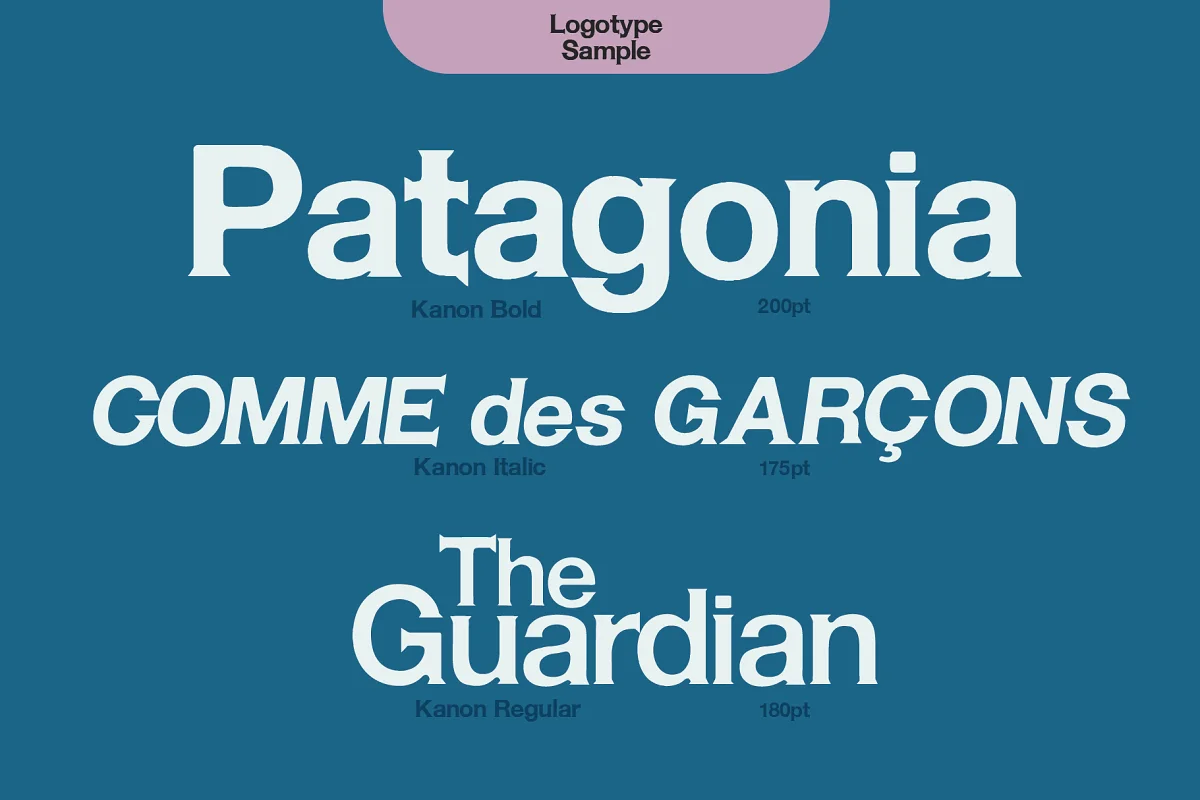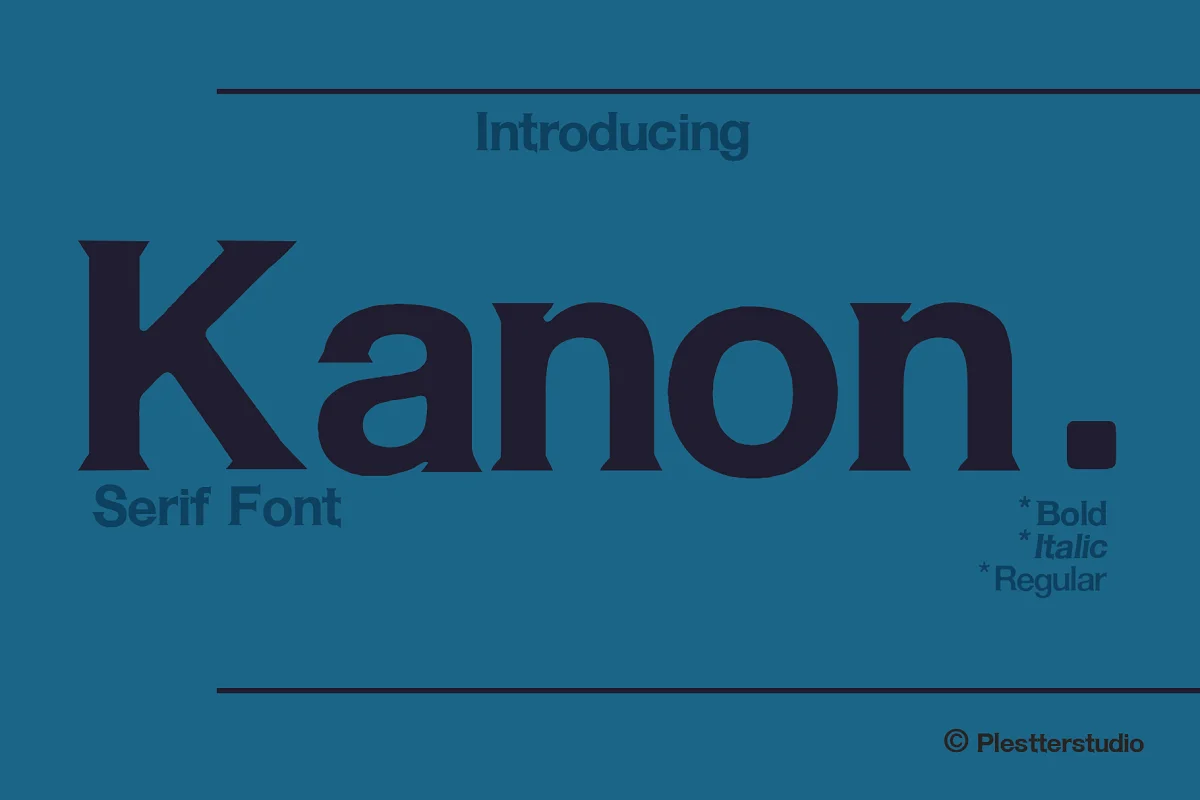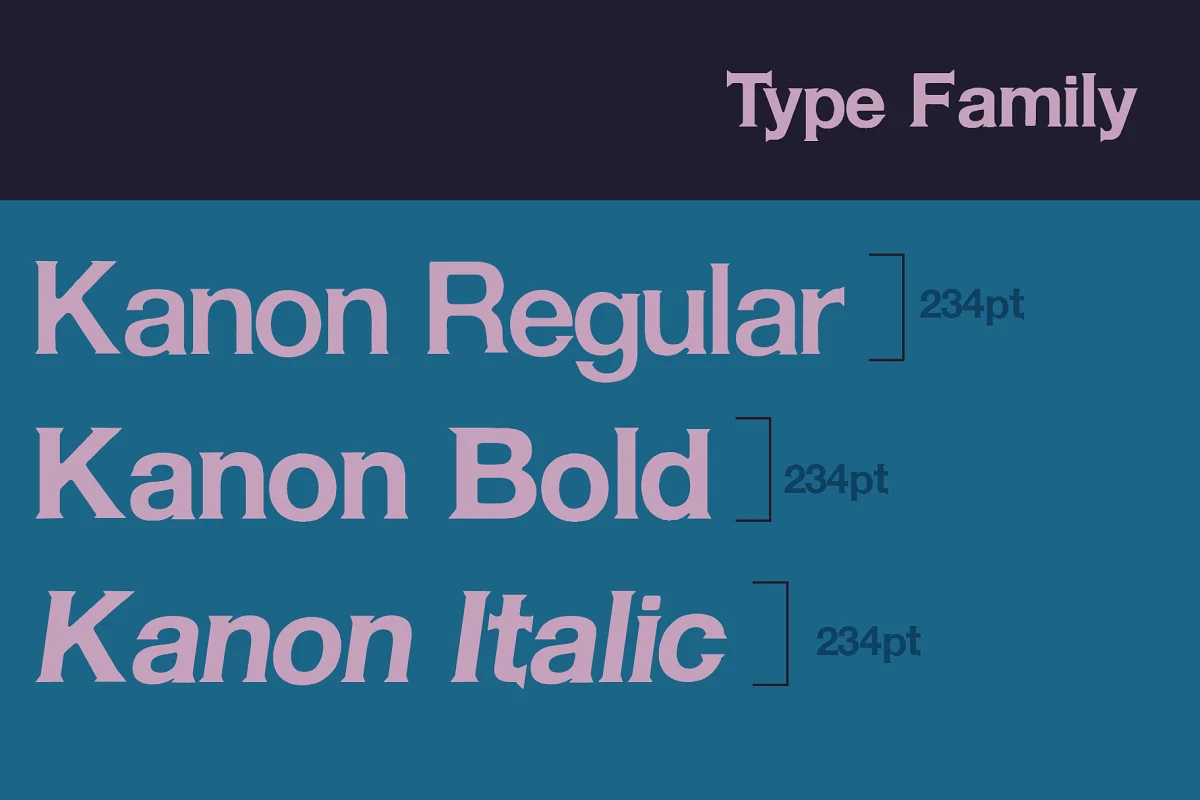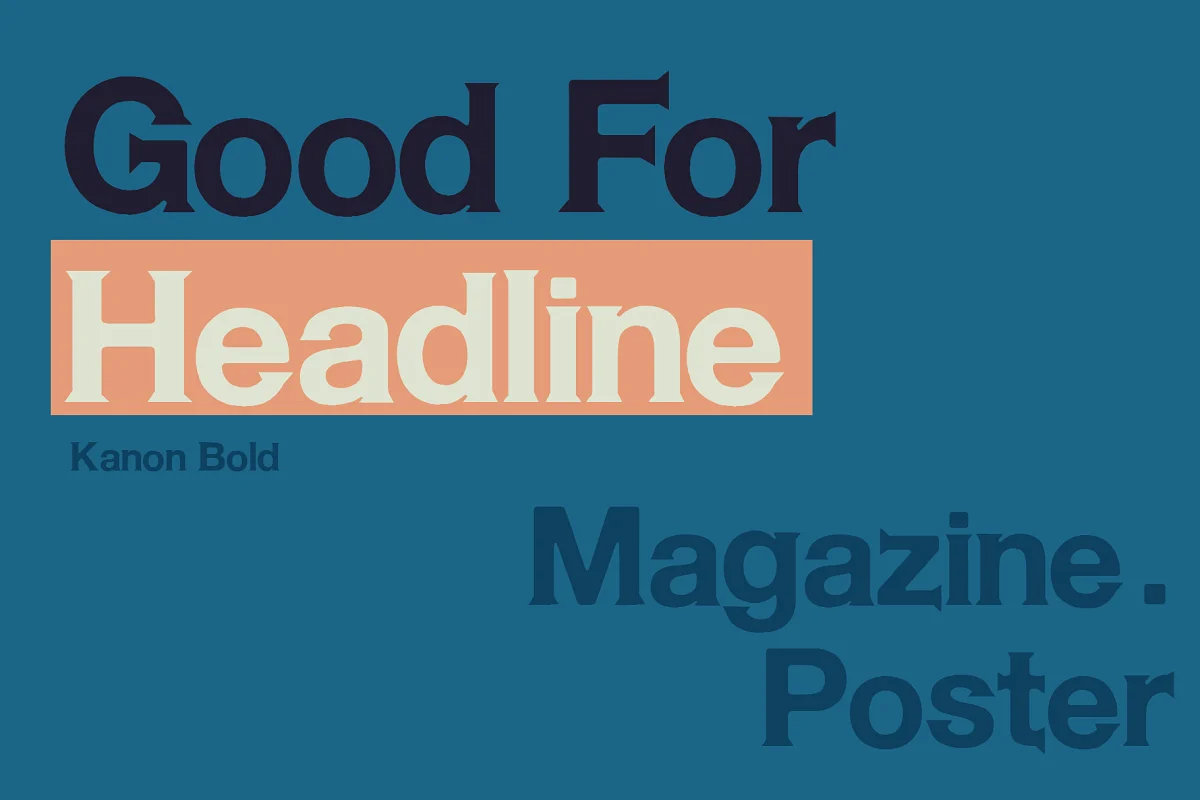
About the Kanon Serif Font
Introducing New serif font family Kanon This font was created for everyone and can use in everything you want. Luxury and Classic serifs make you feel comfortable to see.
Font can be used in :
- Logo
- Display
- Magazine
- Writer
- Many more